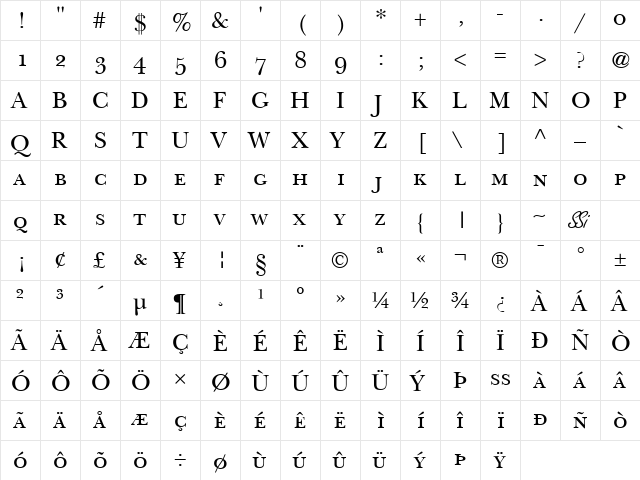
Baskerville Small Caps SSi Small Caps
Design Context for Baskerville Small Caps SSi Typeface
Baskerville Small Caps SSi takes a measured approach to typography — its balanced proportions and neutral character make it a reliable workhorse for both digital and print work.